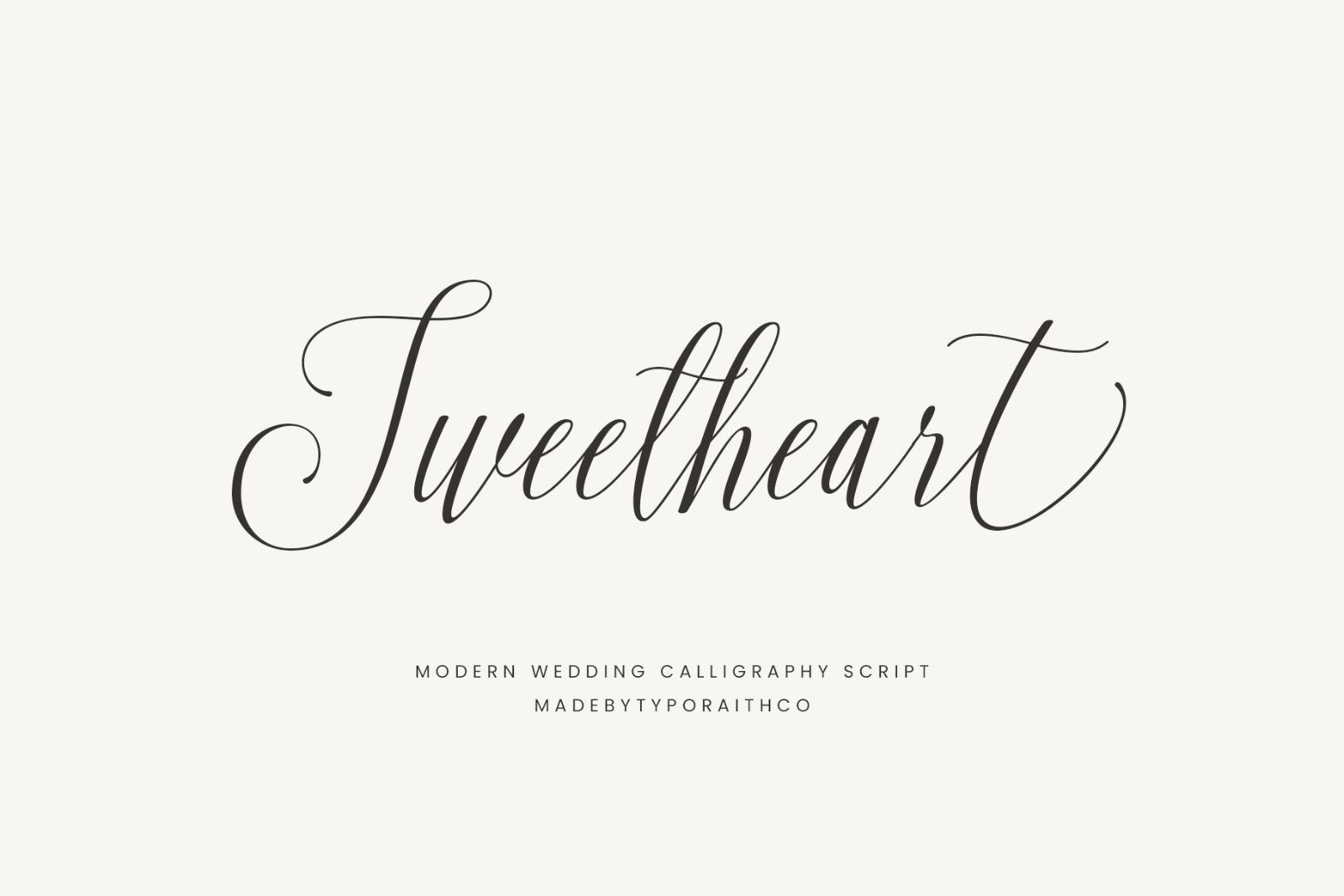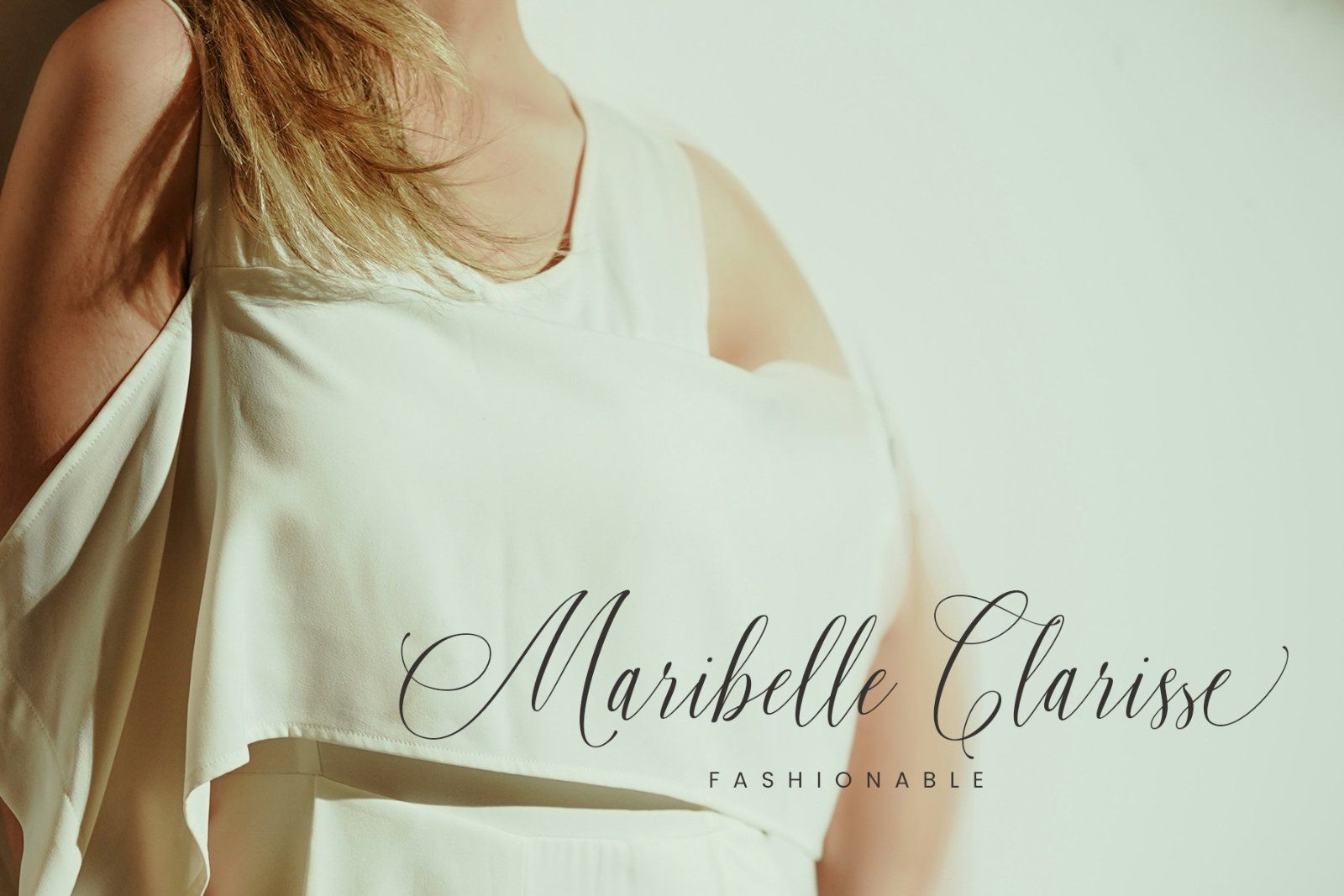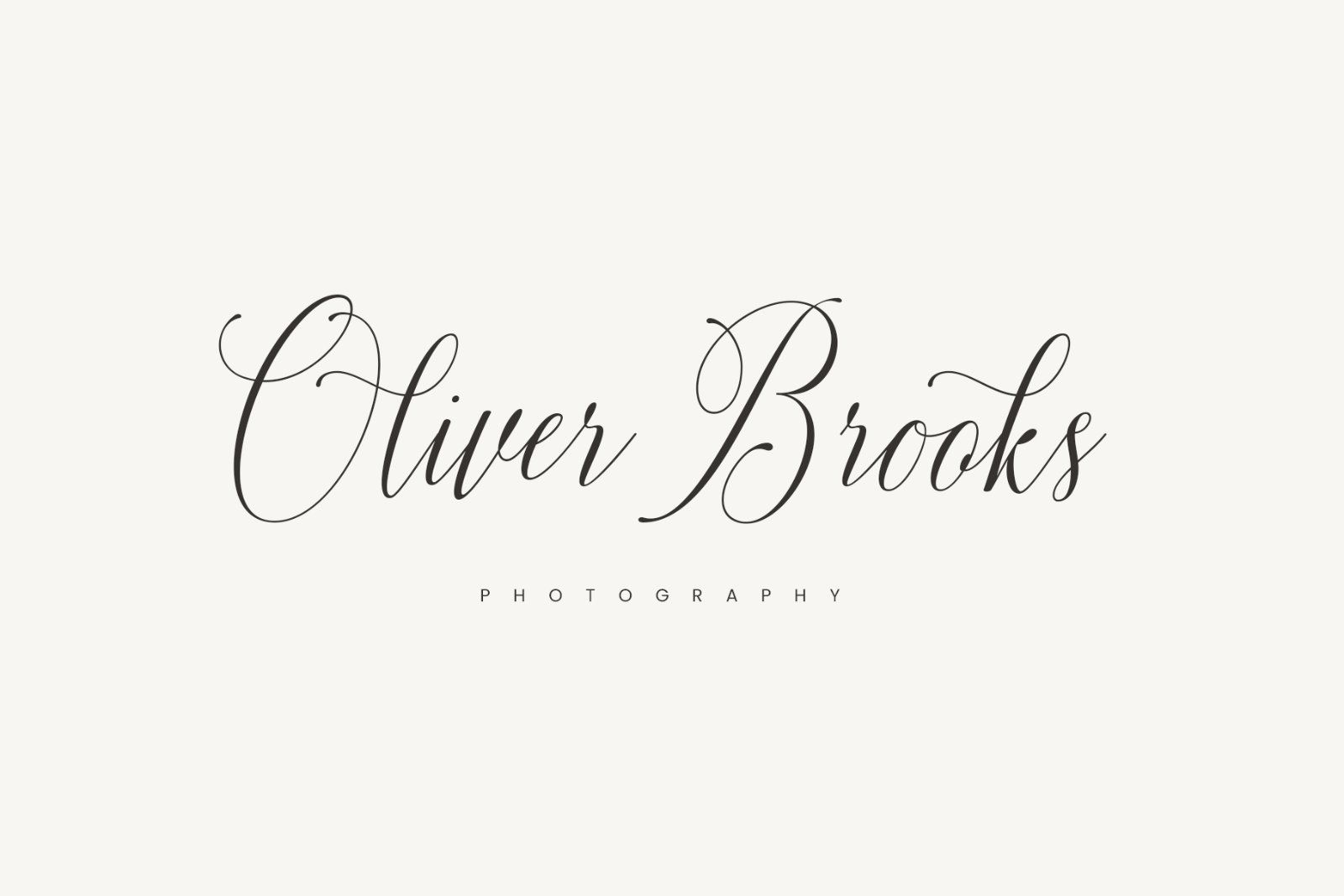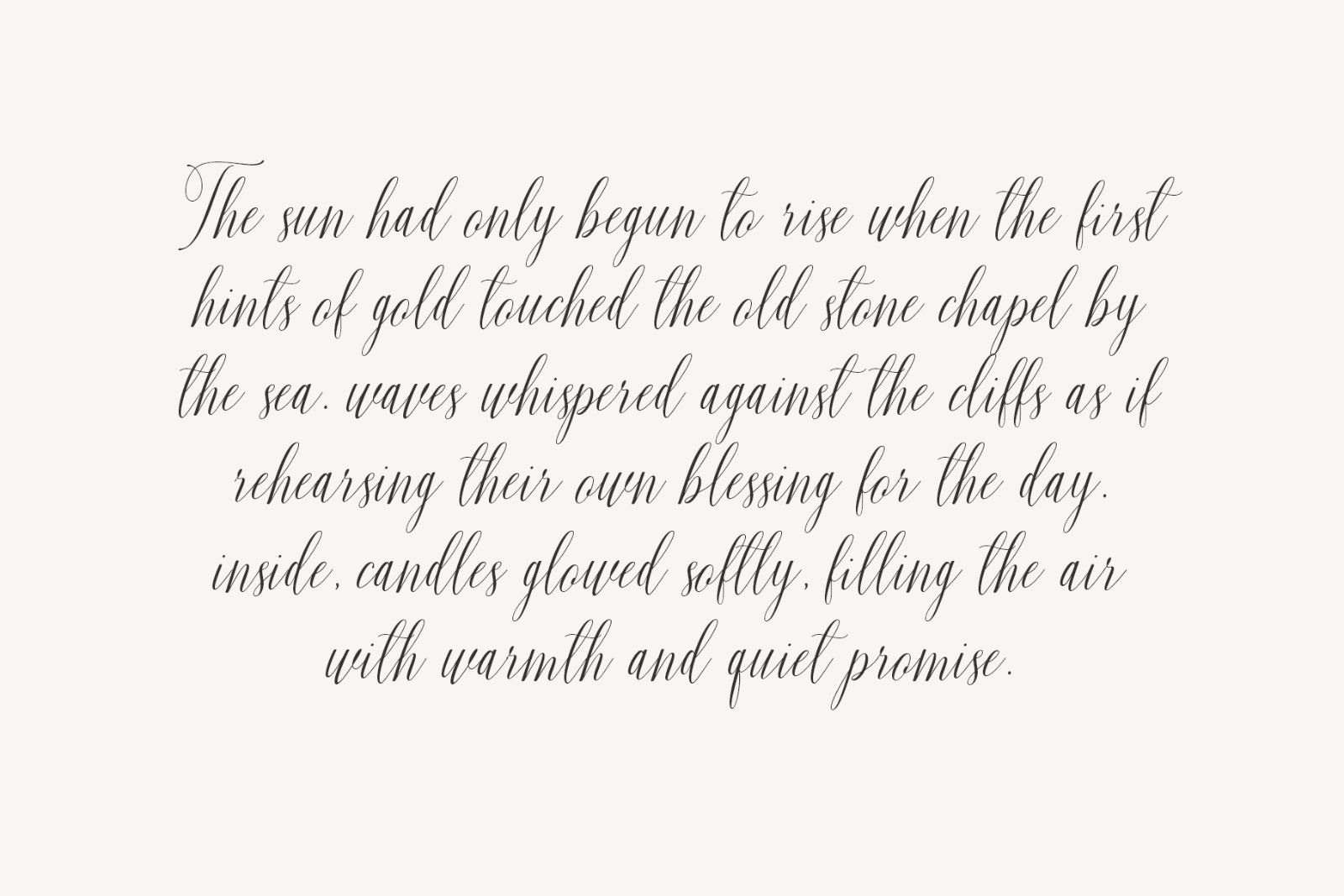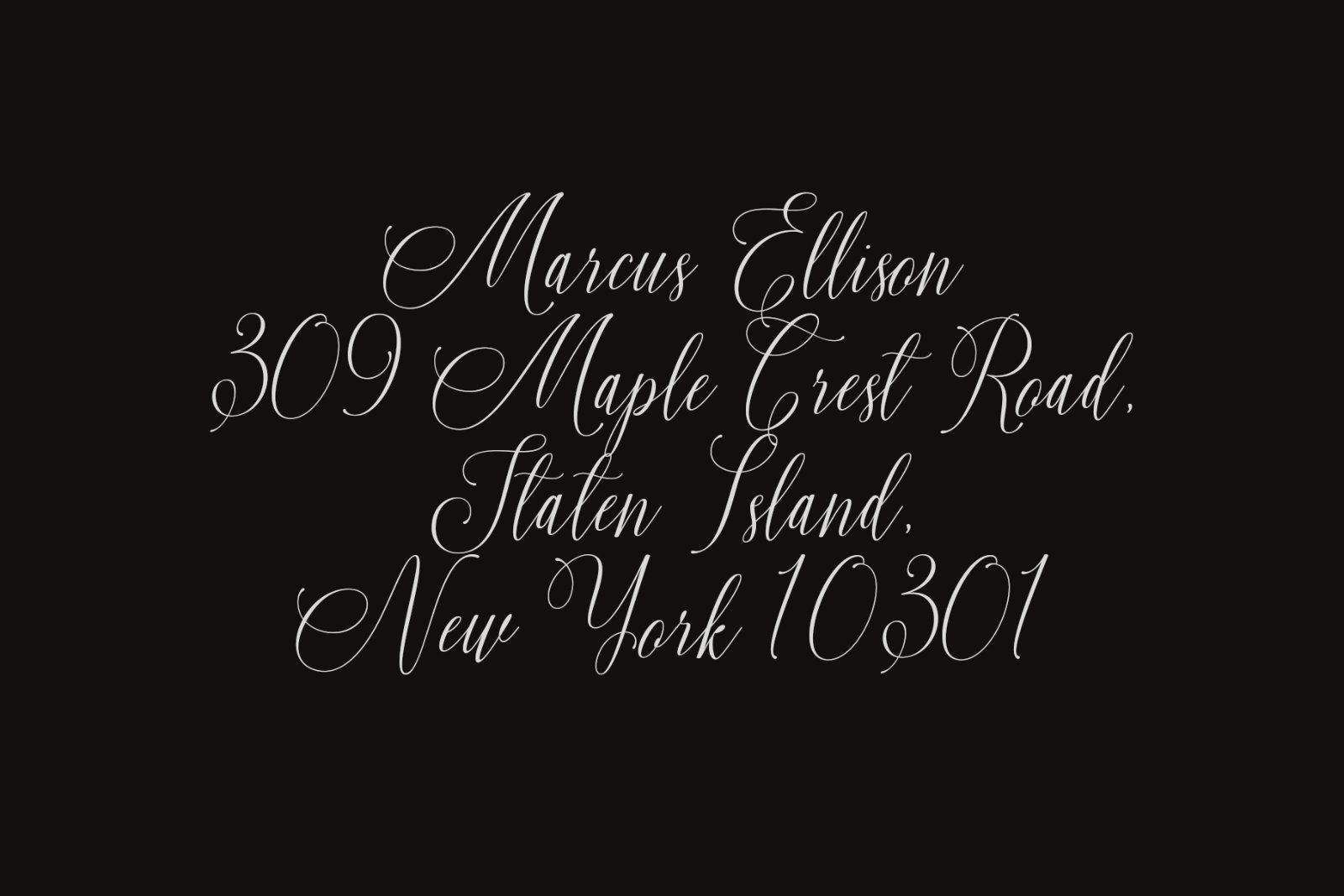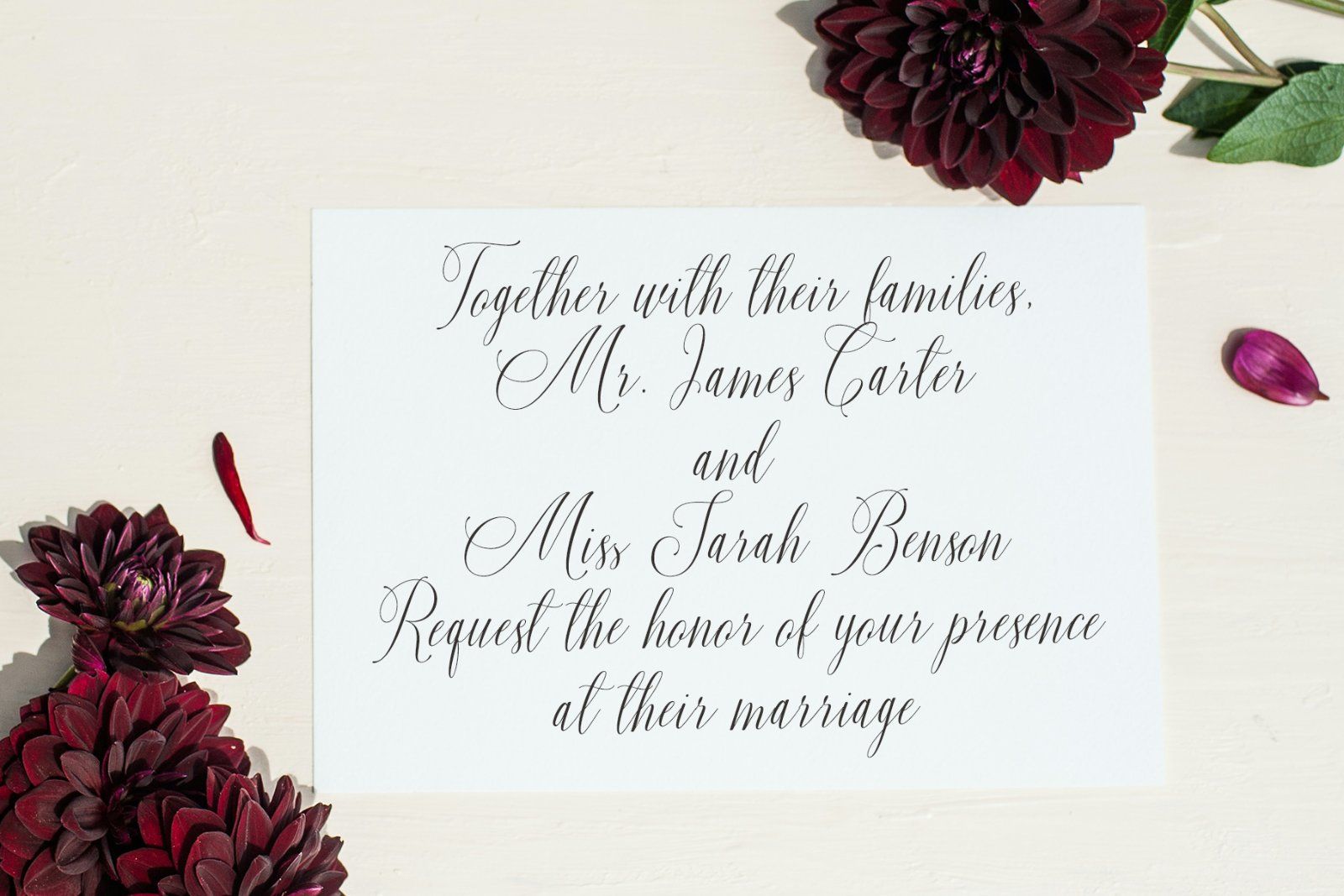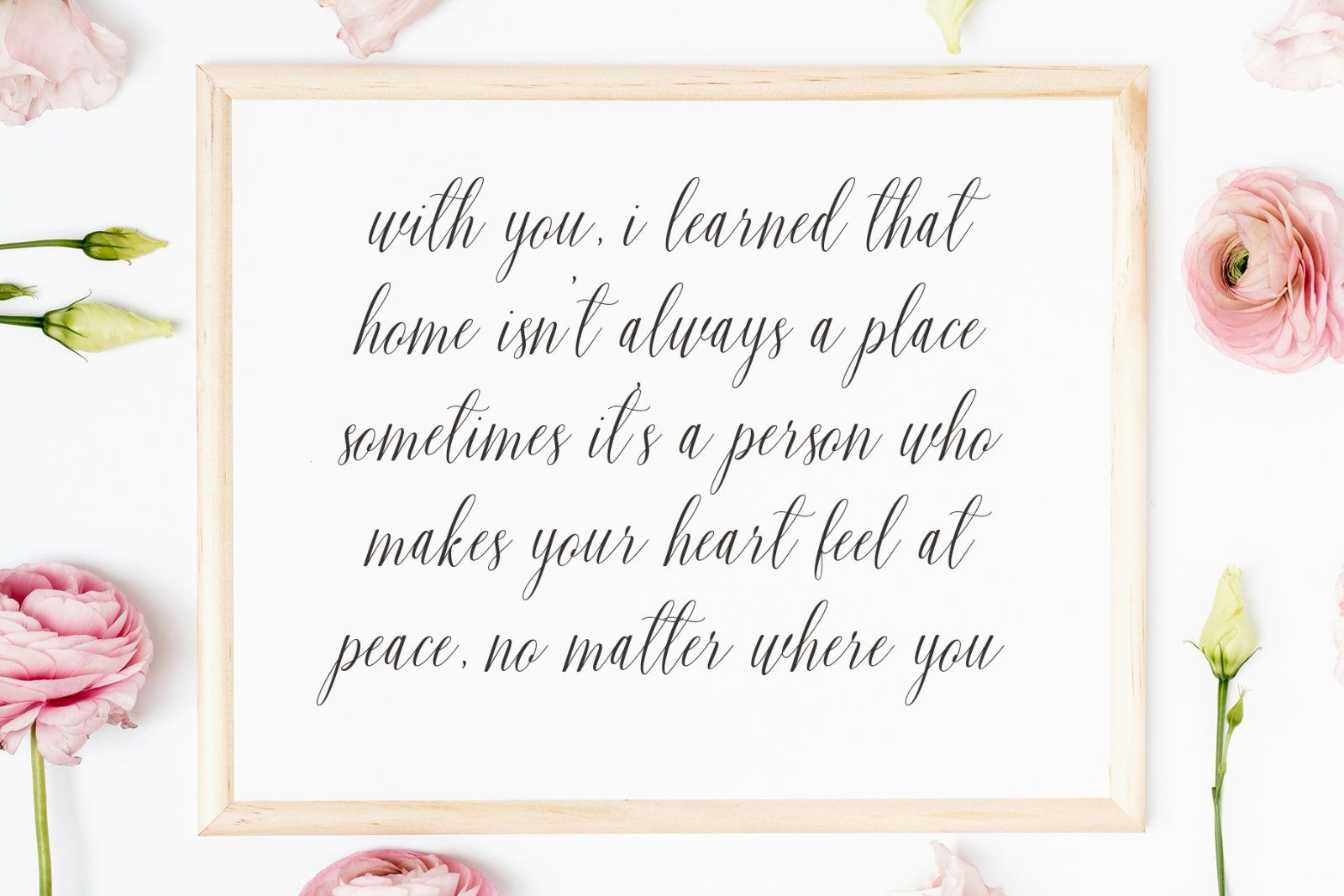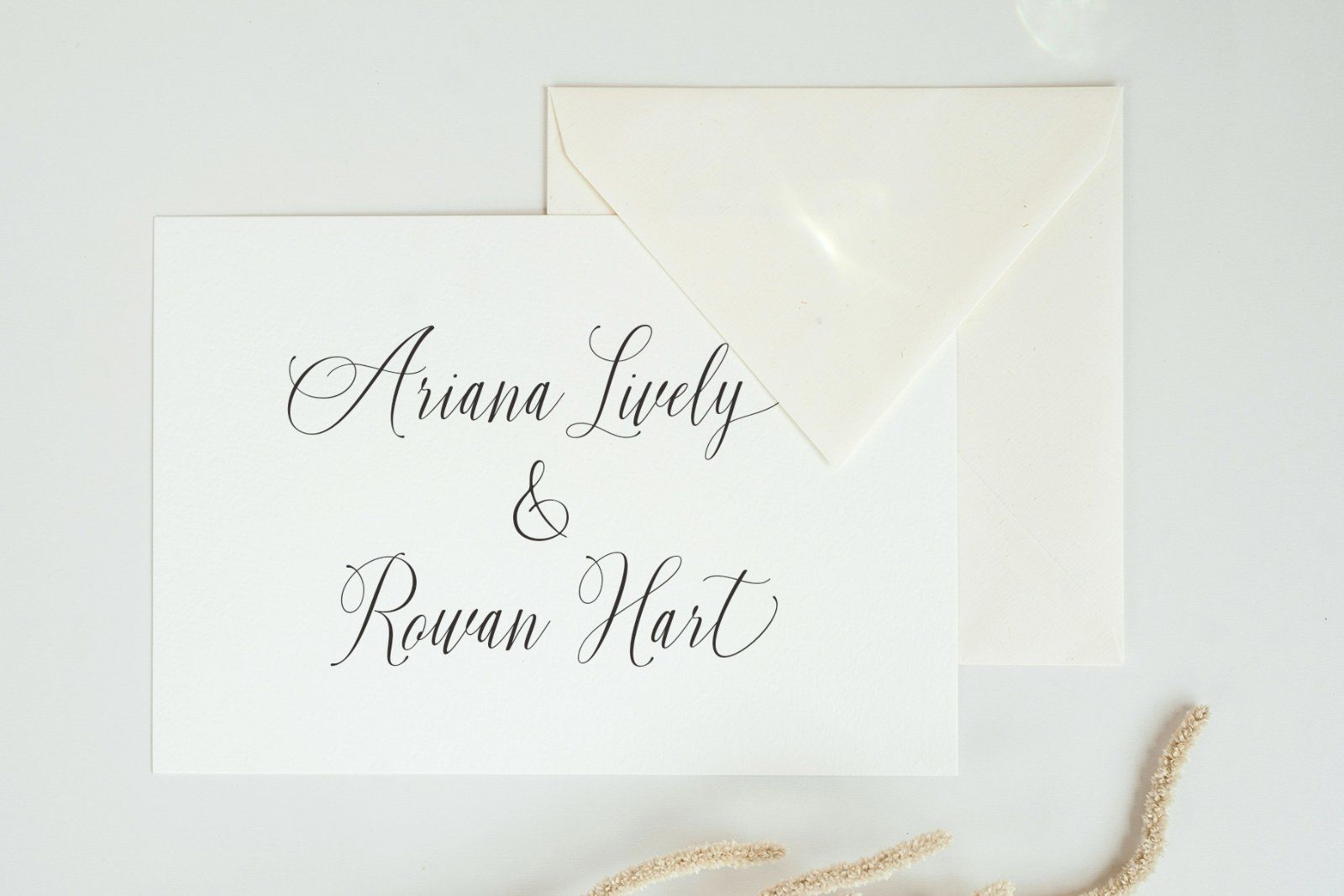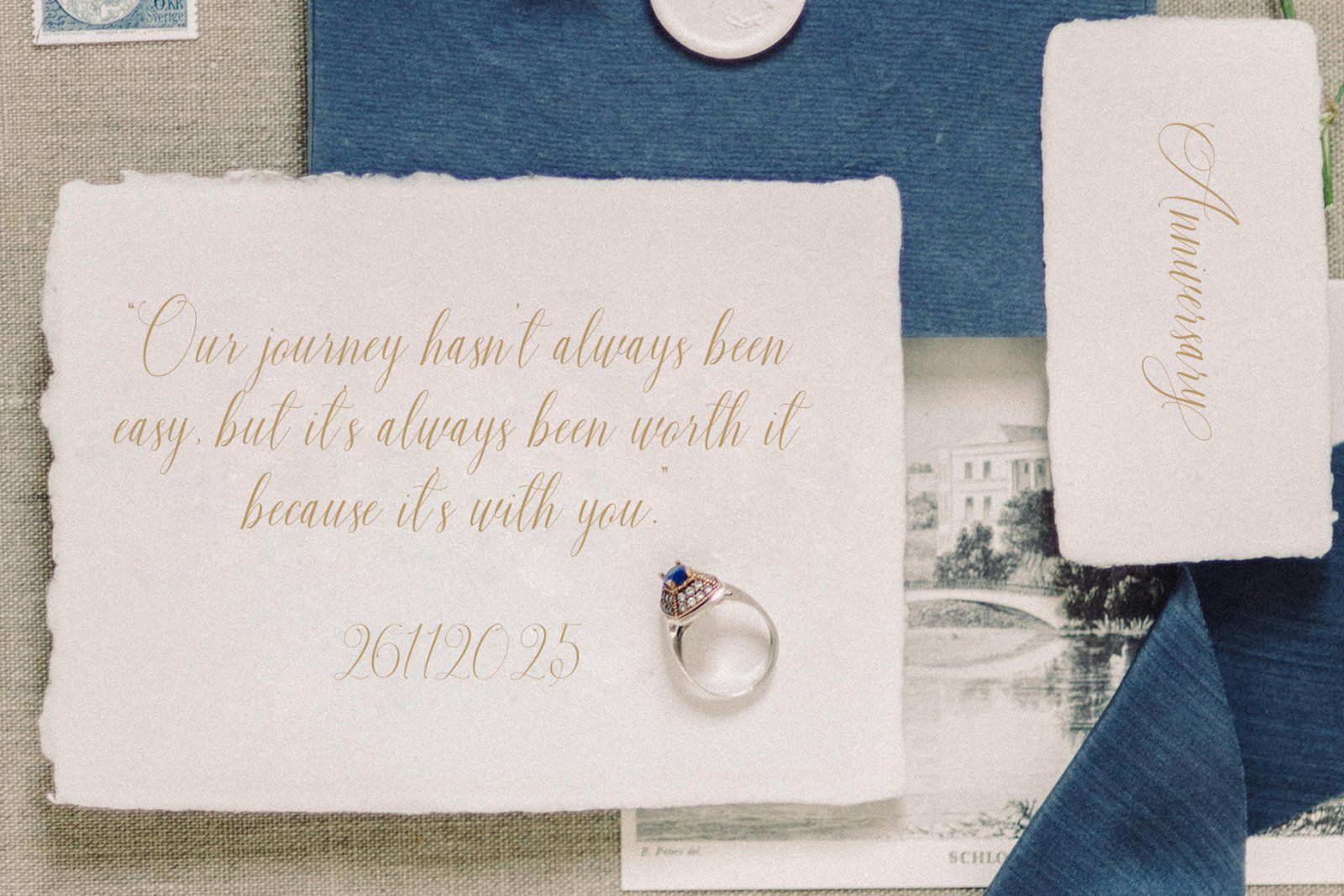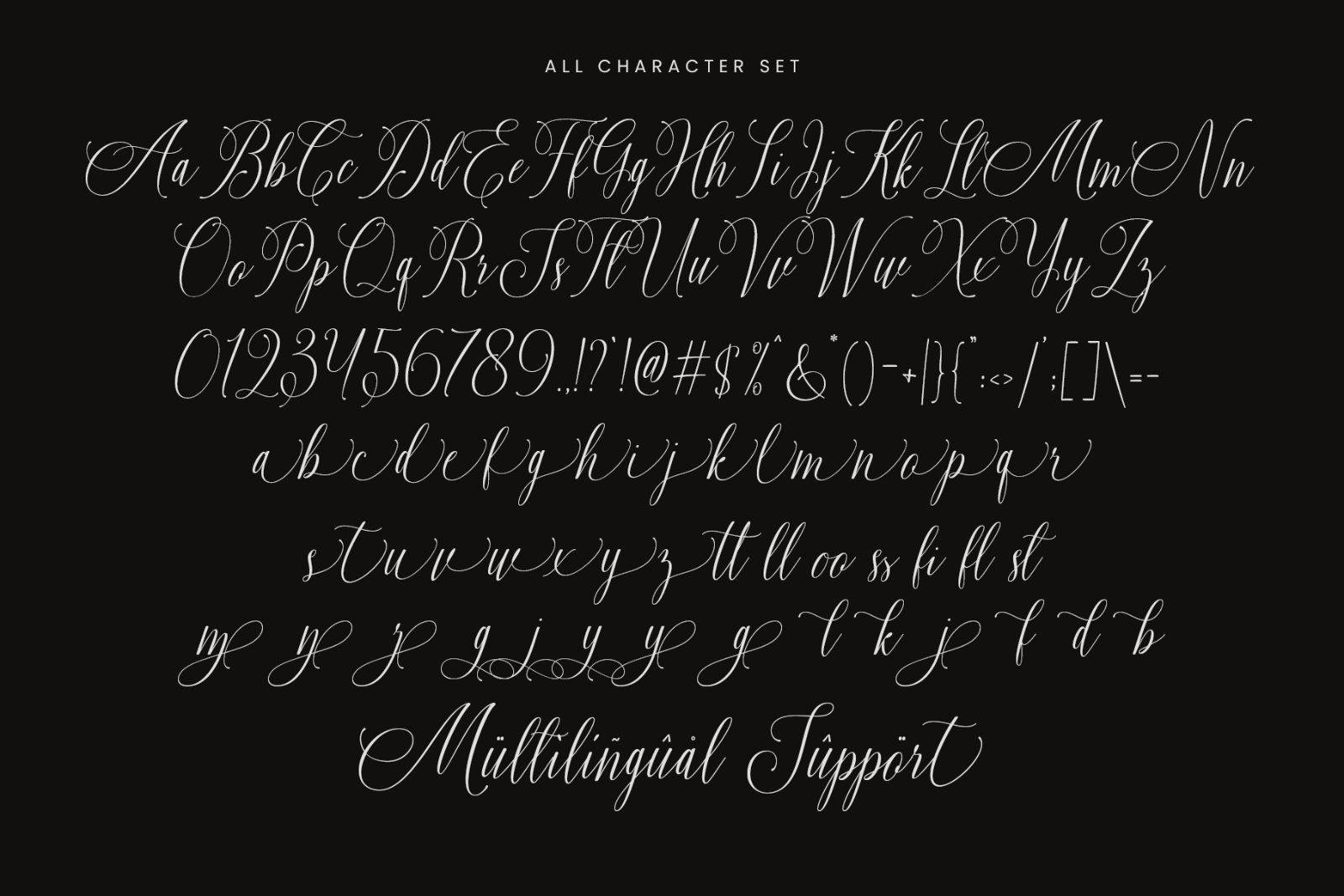
Calistra Calligraphy is a luxurious and elegant modern script font, crafted to bring a romantic and sophisticated feel to any design. With graceful strokes, flowing curves, and beautifully refined letterforms, this typeface offers a premium look ideal for wedding stationery and upscale design projects.
Whether you’re a designer, small business owner, or bride-to-be, Calistra Calligraphy adds timeless charm and visual beauty to every creation.
• Wedding invitations & save the dates
• Logos & branding
• Elegant quotes & wall art
• Greeting cards, stationery, and planners
• Product packaging & labels
• Social media designs & photography watermarks
• Alternates & Ligatures
• Punctuation & Numeral
Make your designs unforgettable with this romantic, graceful script font. Perfect for creating meaningful, high-end visuals that stand out.